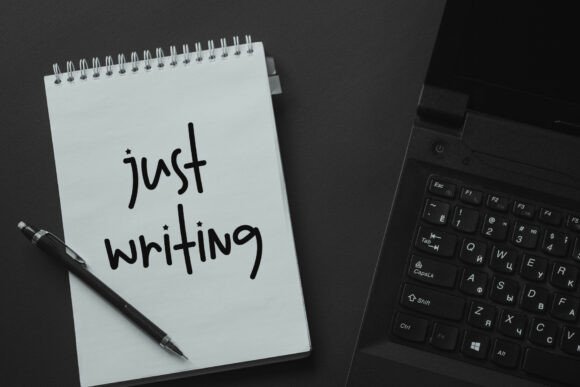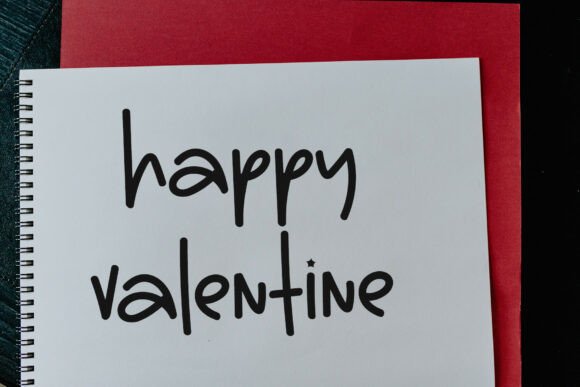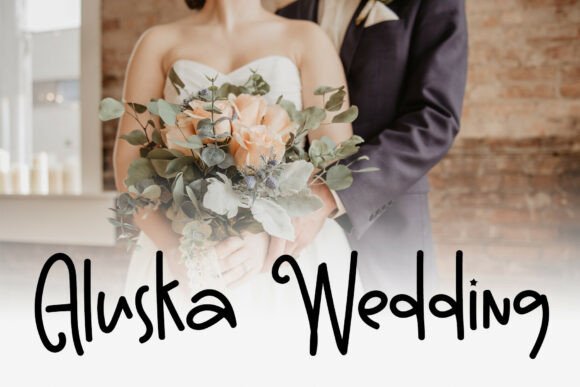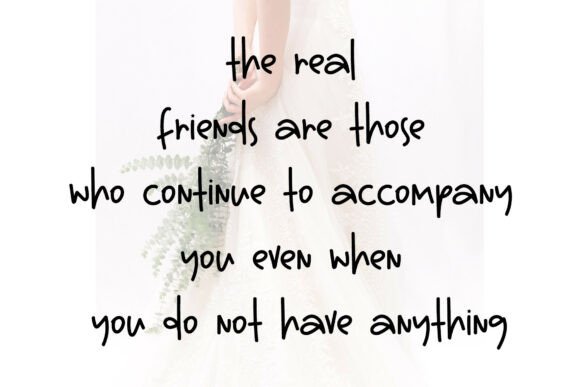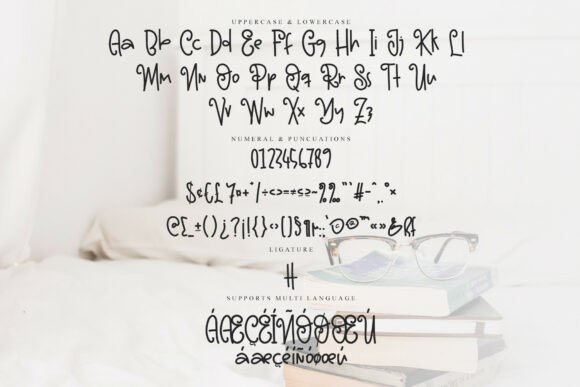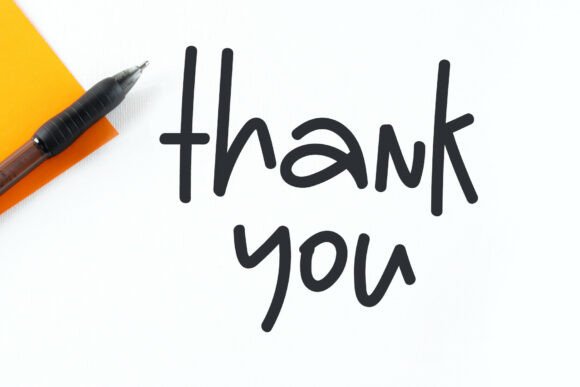
Introduction to Single Mama Font
Have you ever been working on a creative project, and that perfect font just slips right through your fingers? It’s like finding a needle in a haystack, but then – BAM! You stumble upon Single Mama Font, and your design comes alive. This gorgeous handwritten font is a game-changer, and we’re excited to dive into what makes it so special.
As a designer, you know that the right font can make or break a project. That’s why we’re thrilled to share Single Mama Font with you – a high-quality, free download that’s perfect for your next design project. With its timeless style and PUA encoded glyphs, you’ll be able to access all the swashes and characters you need to create truly spectacular designs.
Whether you’re working on a project with a transparent background or just need a reliable design resource, Single Mama Font is here to help. So, let’s take a closer look at what makes this font so valuable for designers like you.
Key Features of Single Mama Font
- High-quality, unique design ideal for creative projects and personal branding.
- Transparent background allows for seamless integration with any design resource.
- Designed to be versatile and adaptable for a wide range of design applications.
- Unique characteristics include elegant lines and a modern aesthetic, perfect for the modern single mama.
- Perfect for personal branding, business cards, logos, and other creative projects.
Honest Review: Single Mama Font
As a designer, I’m always on the lookout for high-quality design resources to elevate my creative projects. The Single Mama Font caught my eye, and I decided to give it a try. Here’s my honest review.
What works well: ✨ The font has a unique, hand-drawn feel that adds a touch of personality to any project. It’s perfect for designers who want to create something truly one-of-a-kind. The font is also highly customizable, making it easy to adjust the size, color, and style to fit your needs.
What doesn’t work well: ⚠️ While the font is free to download, the lack of a transparent background can be limiting. This makes it difficult to use the font on top of images or videos without a white background, which can be a major design faux pas.
Overall, I’d give the Single Mama Font 4 out of 5 stars. It’s a great addition to any designer’s toolkit, especially for creative projects that require a touch of whimsy. Just be aware of the limitations, and you’ll be golden.
- Unique, hand-drawn design
- Lack of transparent background
The Single Mama Font is a free design resource perfect for any creative project. This high-quality font features a transparent background, making it easy to use in a variety of design applications.
Tips for Getting the Most Out of Single Mama Font
To get the most out of the Single Mama Font, use it in combination with other design elements, such as images or graphics. Experiment with different font sizes, colors, and styles to create unique and eye-catching designs.
The Single Mama Font is perfect for a variety of creative projects, including social media graphics, flyers, posters, logos, and more. Its high-quality design and transparent background make it easy to use in a variety of design applications.